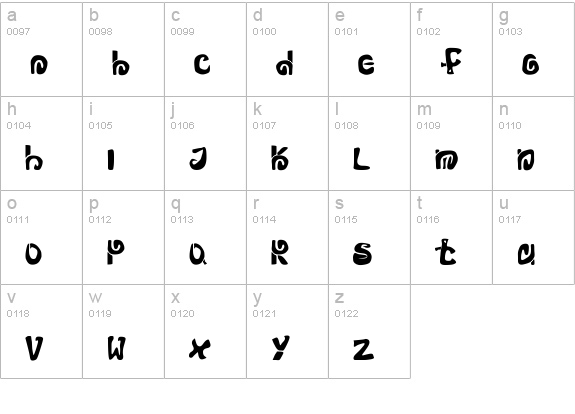
MortumZeBirdz Font Details
MortumZeBirdz font is a stunning display typeface that exudes elegance and sophistication. With its unique and intricate design, this font is sure to make a statement in any project. The combination of sharp angles and flowing curves gives MortumZeBirdz a dynamic and eye-catching appearance. What sets MortumZeBirdz font apart is not only its striking aesthetic, but also the fact that it is available for free download at FontsMarket.com. This means that designers, creatives, and enthusiasts alike can easily access this beautiful font to use in a wide range of projects without any cost. Whether you're looking to add a touch of flair to your branding, create captivating headlines, or elevate your design work, MortumZeBirdz font is a versatile and visually appealing choice. Download it for free today and let your creativity soar with this exquisite typeface.